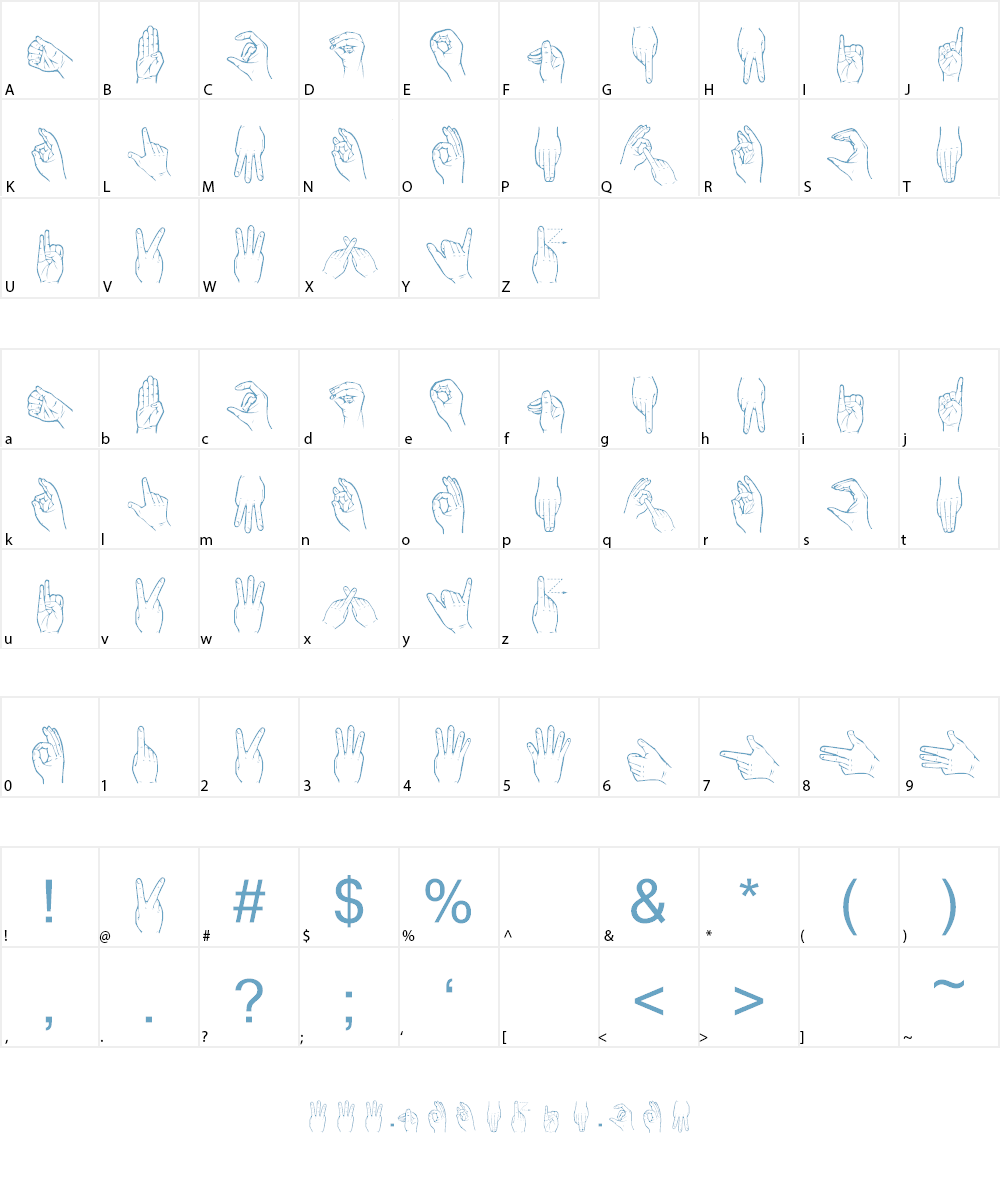
This is an Estonian derivative of Sam Wang's "HandSign" made back in 1993. Just as the original the font is licensed as shareware, mainly meant for educational purposes. Let me know if you find any flaws or have ideas how to improve upon this. Contains ESL A-Z, numbers from 0-9 and ÕÄÖÜŠŽ.